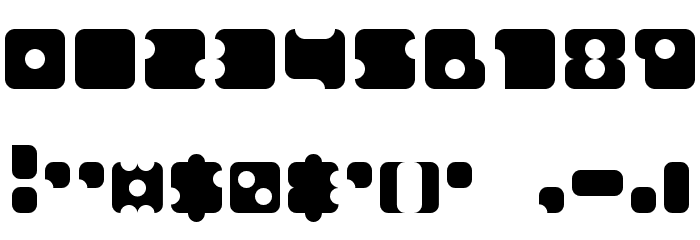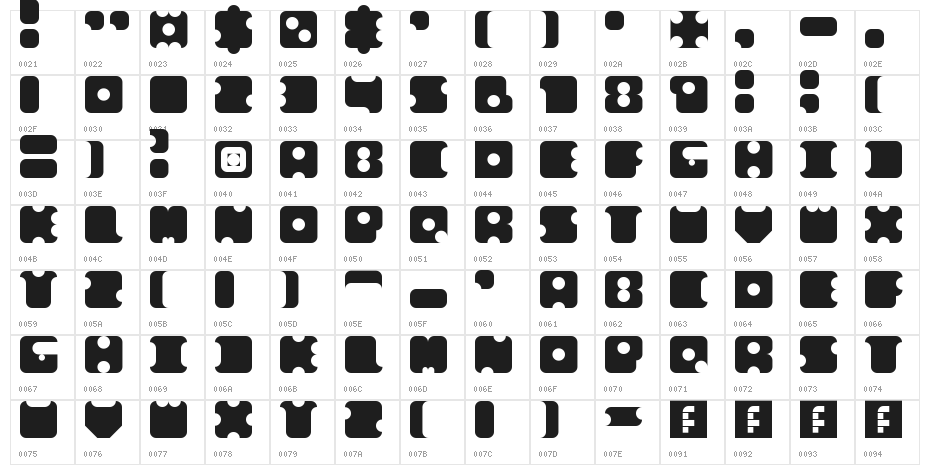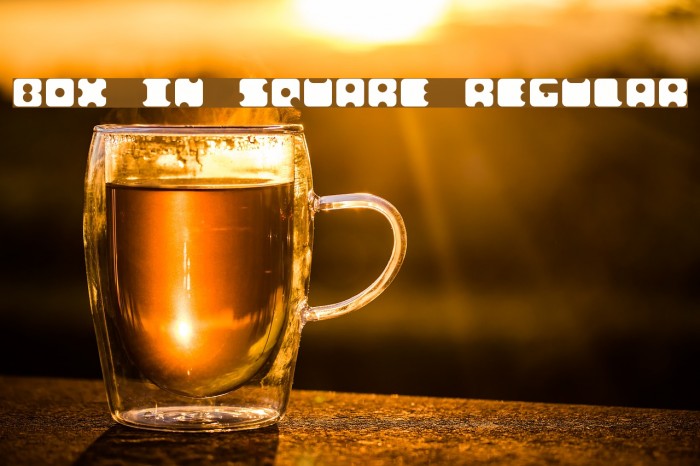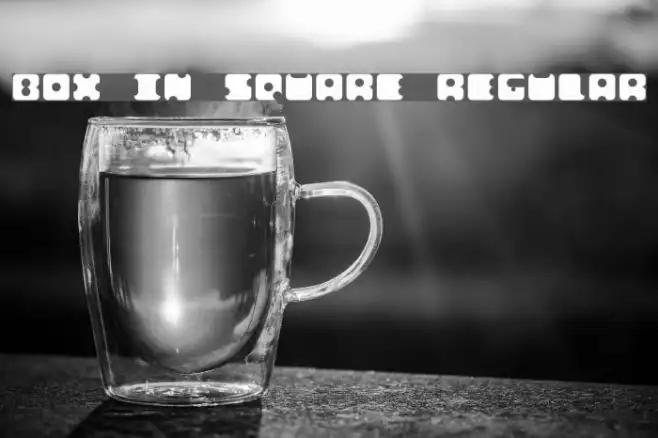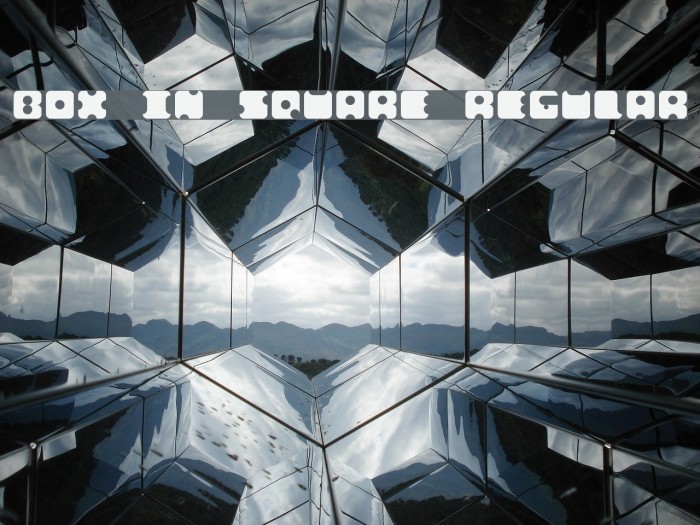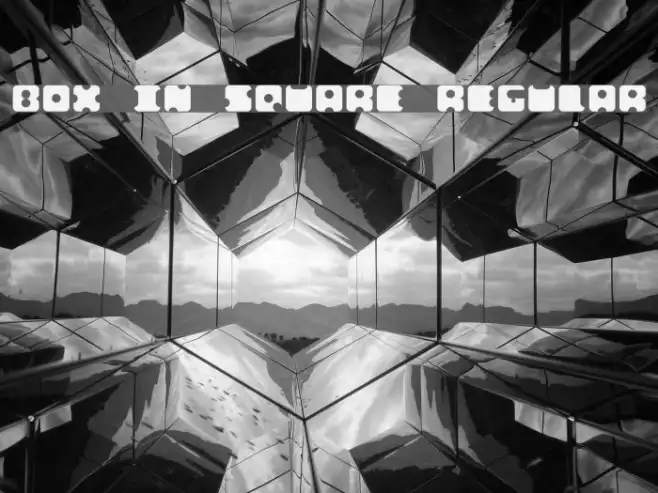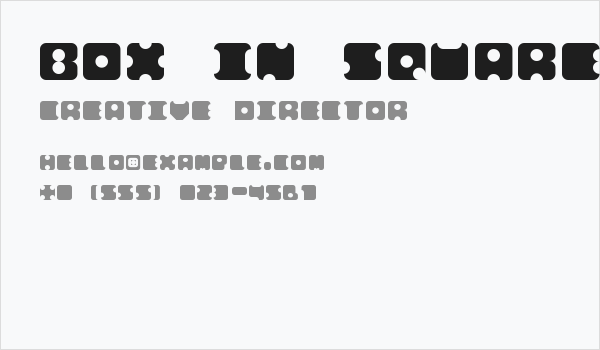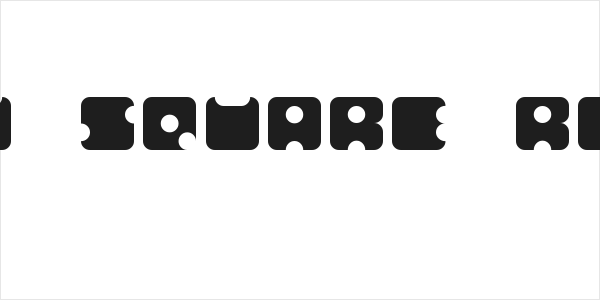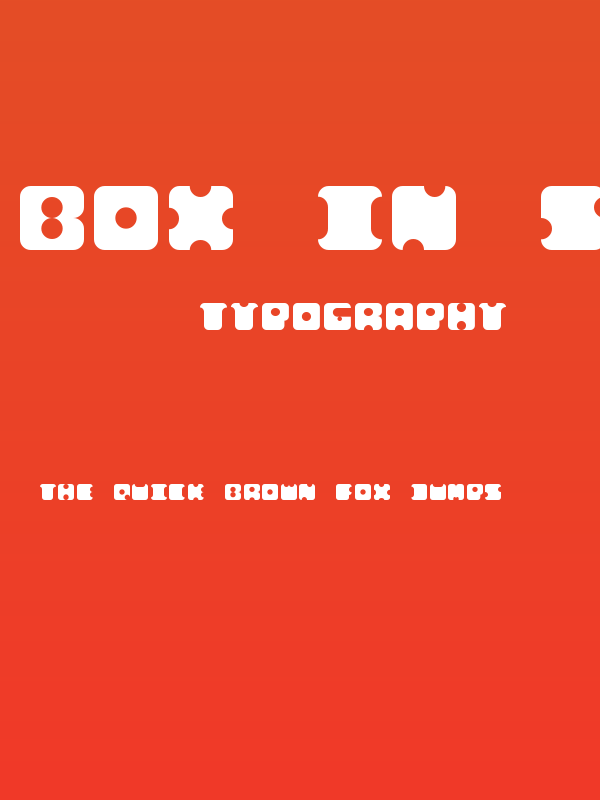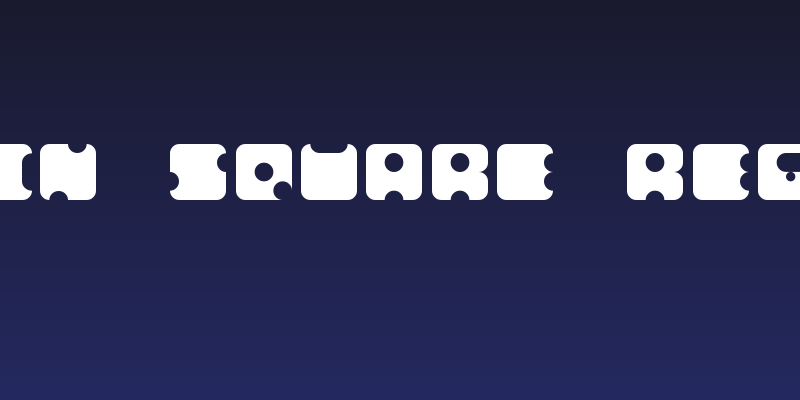
box in square Regular Font
box in square Regular Description
This font features a bold and playful design with characters enclosed in square-like shapes, creating a unique and eye-catching appearance. The letters are heavily stylized with rounded corners and consistent thickness, giving them a blocky yet smooth look. The font maintains a uniform width across all characters, contributing to its cohesive and structured feel. The design is reminiscent of retro or vintage styles, yet it retains a modern twist with its geometric forms. The characters are tightly spaced, enhancing the compact and dense aesthetic. This font is ideal for projects that require a strong visual impact and a touch of whimsy.
| Overall Style | Modern, Vintage |
| Proposed Projects | Perfect for posters, logos, branding, and any design needing a bold, playful touch. |